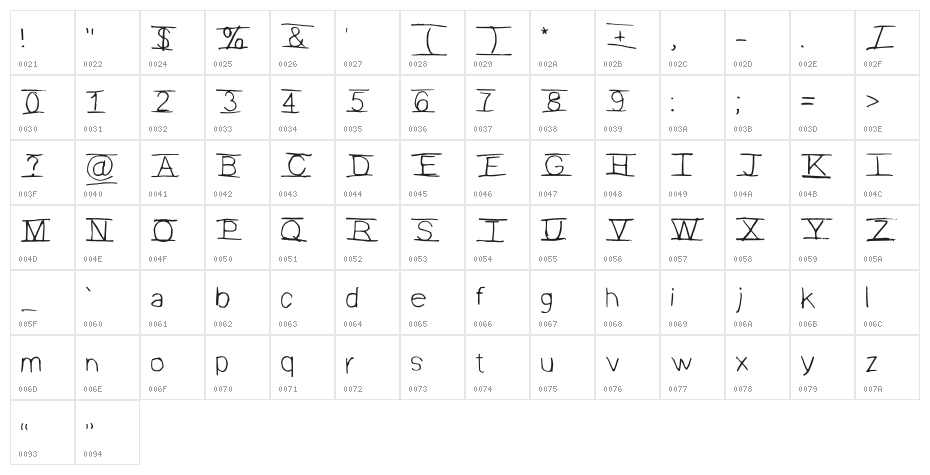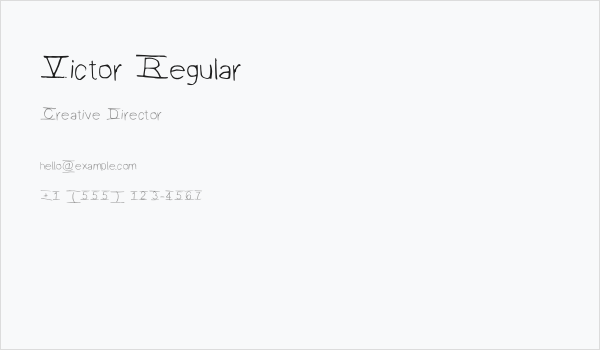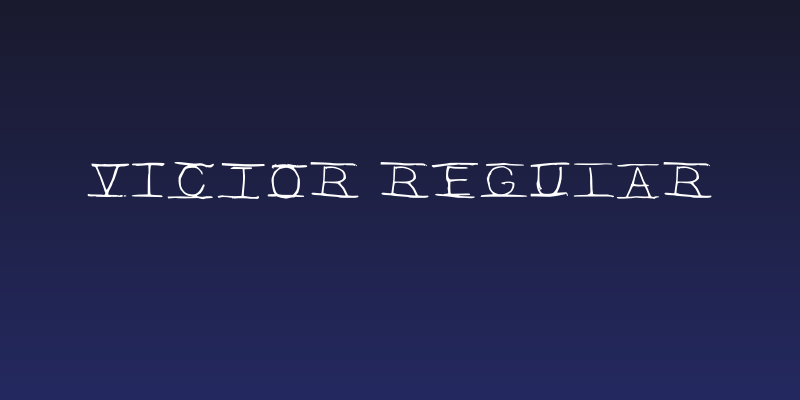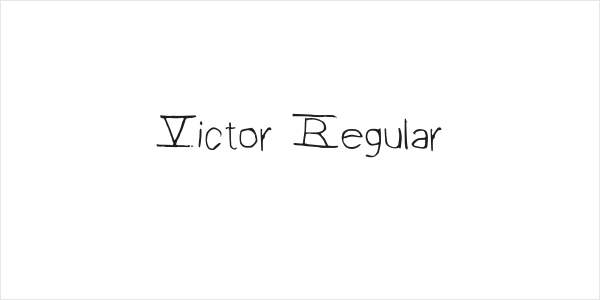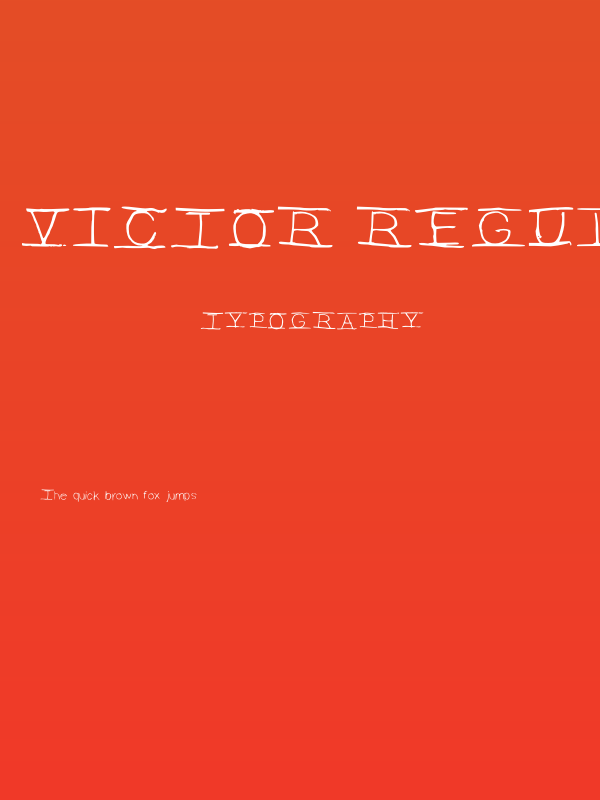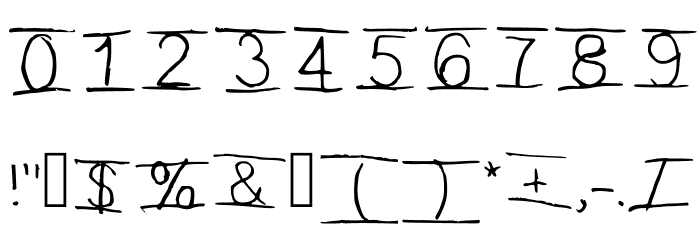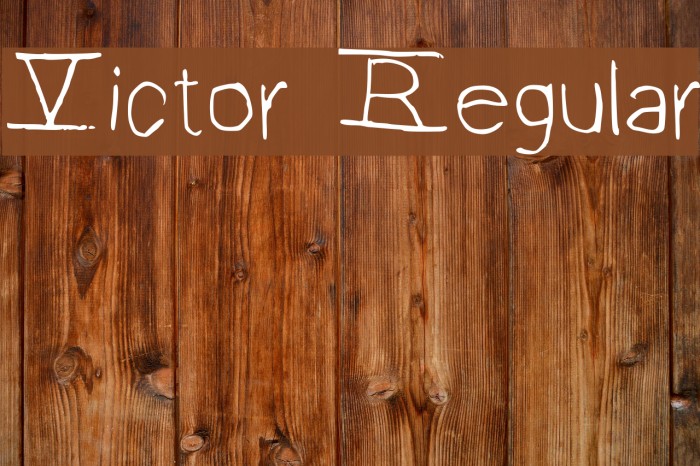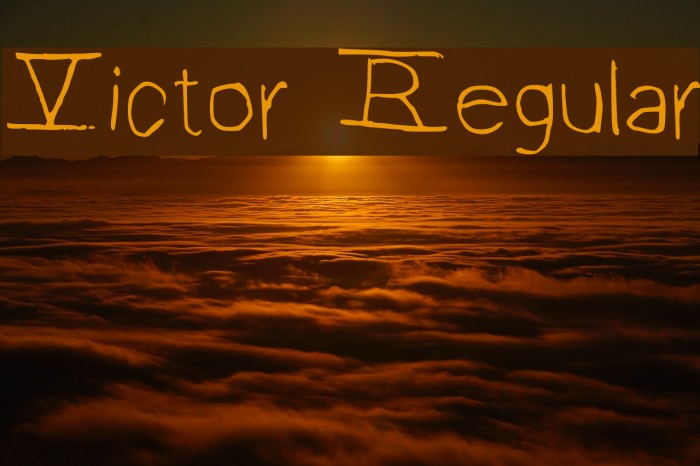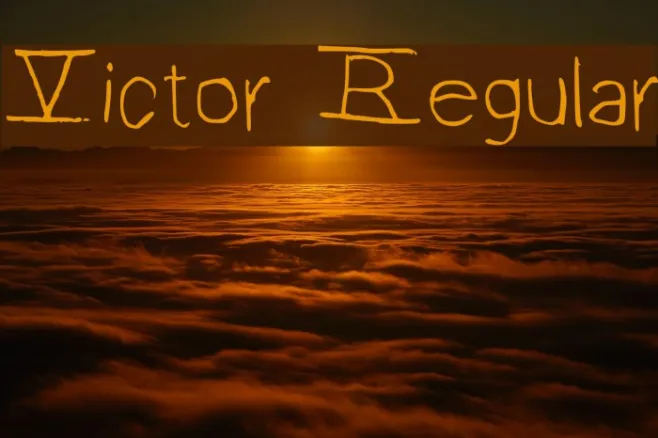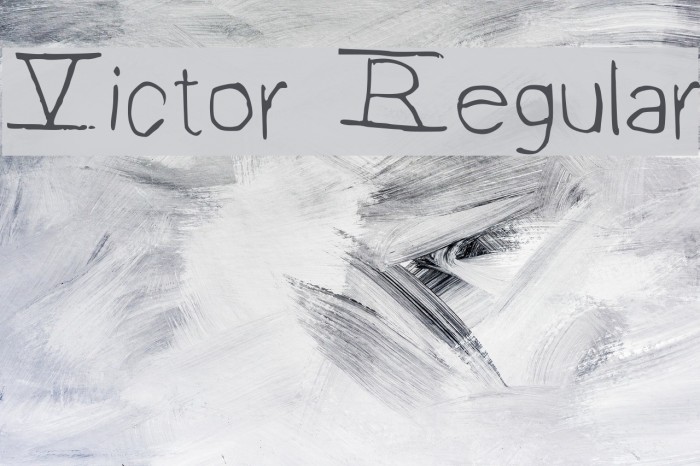
Victor Regular Font
Victor Regular Description
This font features a playful and slightly irregular design, giving it a hand-drawn appearance. The uppercase letters are tall and narrow, with varying stroke widths that add a dynamic feel. The lowercase letters maintain a consistent style, with rounded edges and a casual flow. Numbers and special characters follow the same whimsical style, making the font suitable for creative and informal projects. The overall look is unique and artistic, with a touch of spontaneity that makes it stand out.
| Proposed Projects | Ideal for children's books, creative posters, casual branding, and artistic invitations. |